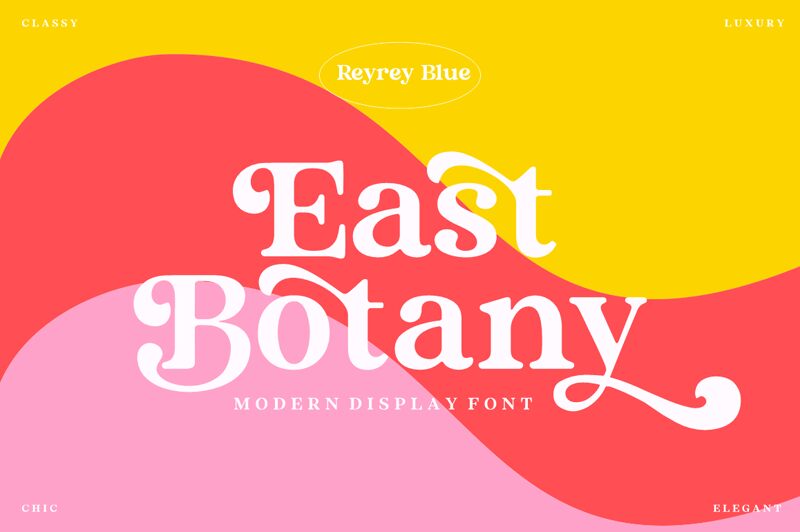
East Botany, crafted by ReyreyBlue, exudes a classic charm with a contemporary twist. This serif font marries the elegance of traditional typefaces with playful curves that give each letter a unique personality. Its bold presence commands attention, making it an excellent choice for headlines and titles that need to stand out.
The aesthetic appeal of East Botany lies in its balance between sophistication and whimsy, making it versatile for various design scenarios. It's ideal for branding projects, editorial work, and any setting where a touch of refinement is needed without sacrificing character. This font not only speaks but sings with a style that can elevate the ordinary to extraordinary.